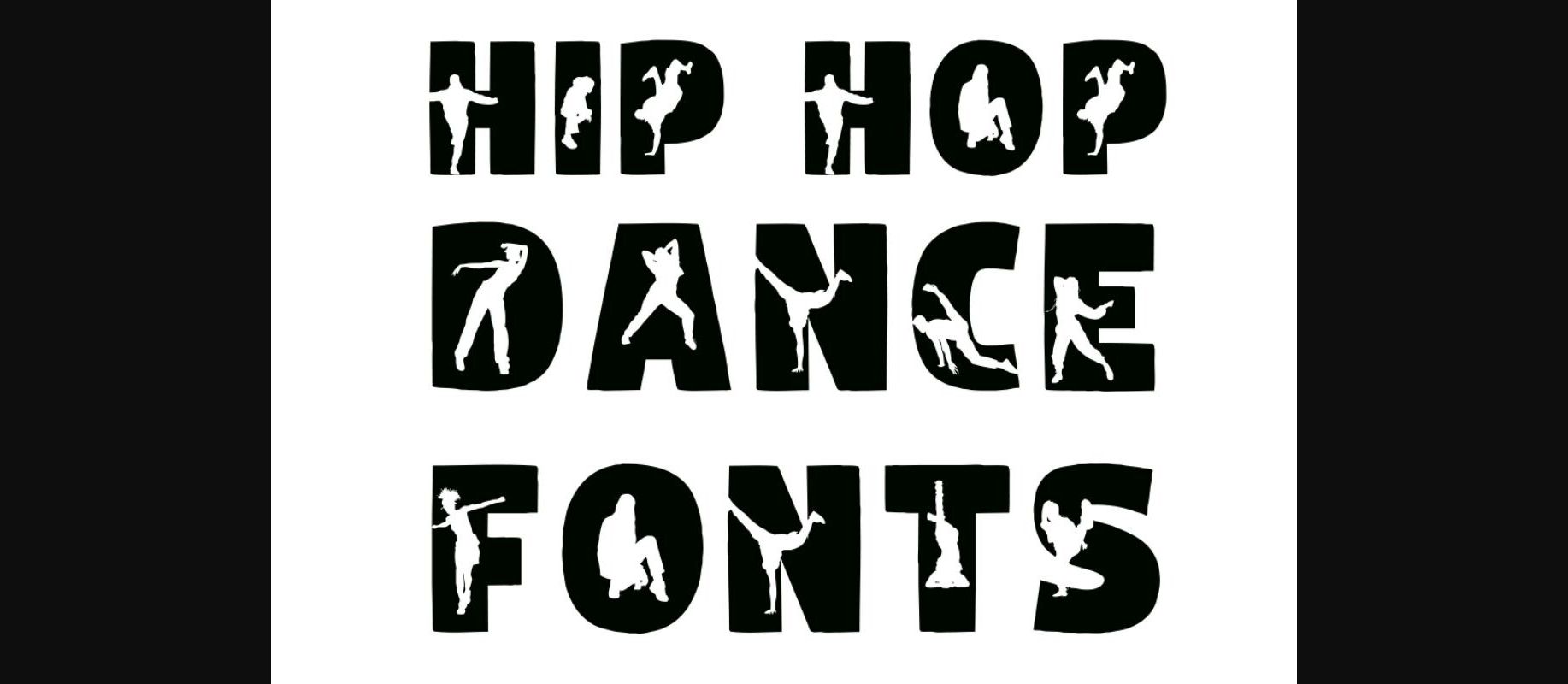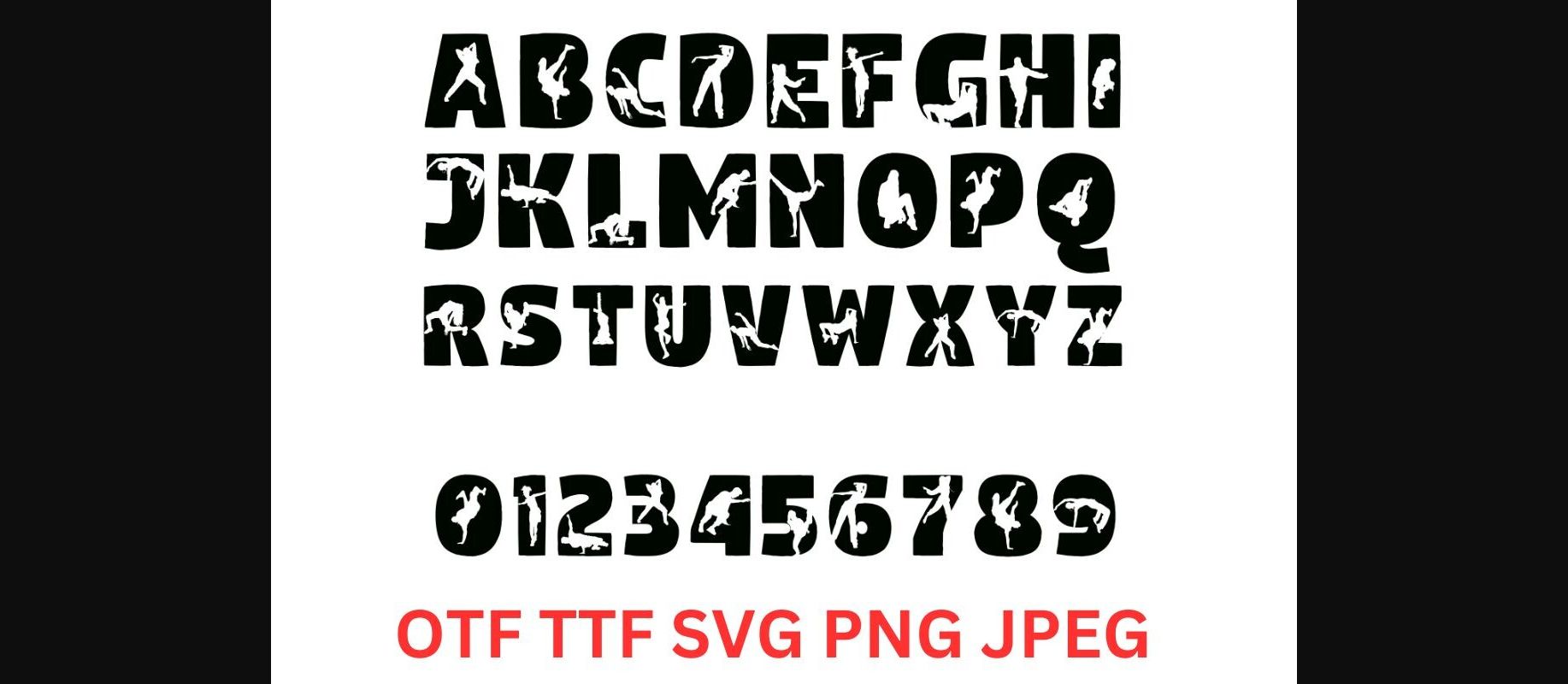
About Hip Hop Dance Font
Elevate your design projects with “Urban Groove,” our exclusive HIP-HOP DANCE Upper Case Alphabet and Numbers Font. This dynamic font, available in OTF, TTF plus bonus files in SVG, PNG, and JPEG formats, embodies the spirit and energy of hip-hop dance culture.